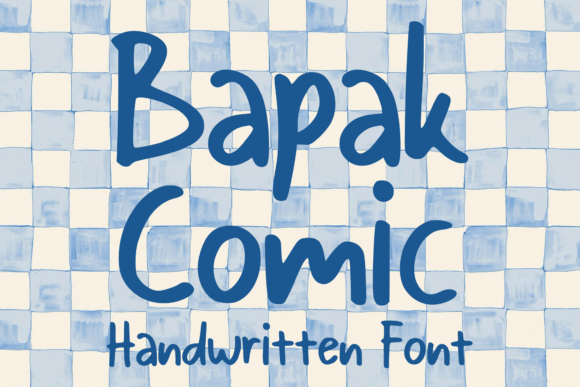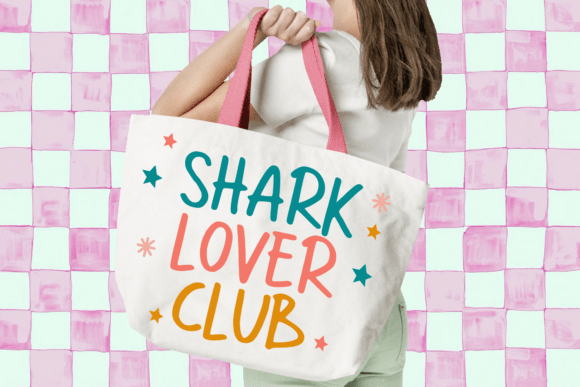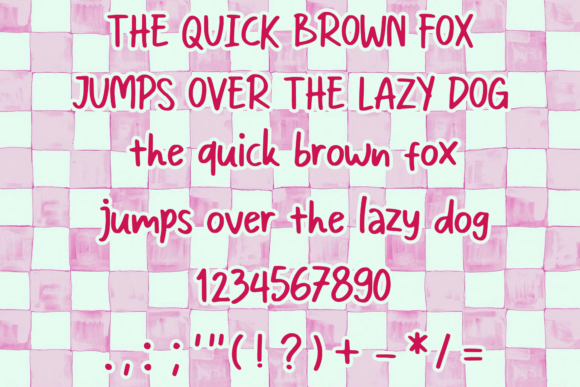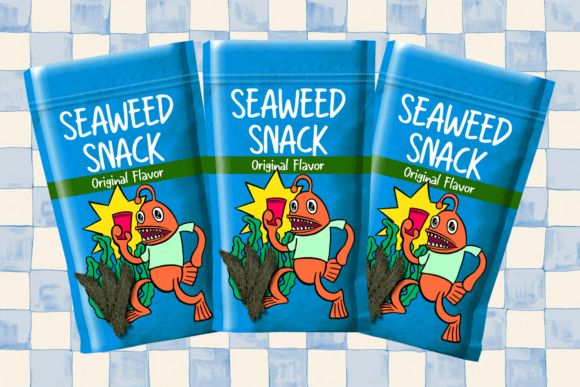
Bapak Comic Font: A Playful Handwritten Font for Cricut & DIY Projects
About the Bapak Comic Font
From logos to headlines, the Bapak Comic Font is the perfect choice for making a lasting impression. Bapak Comic is a fun and playful comic marker font. It will elevate a wide range of design projects to the highest level. You can use this font for many design ideas such as stickers, t-shirt designs, amazing logo designs, magazine or book covers, comics, cartoon drawings, and many more. This font will add a super cool touch to your designs!
Bapak Comic Font Usage Examples
Bapak Comic Font Example